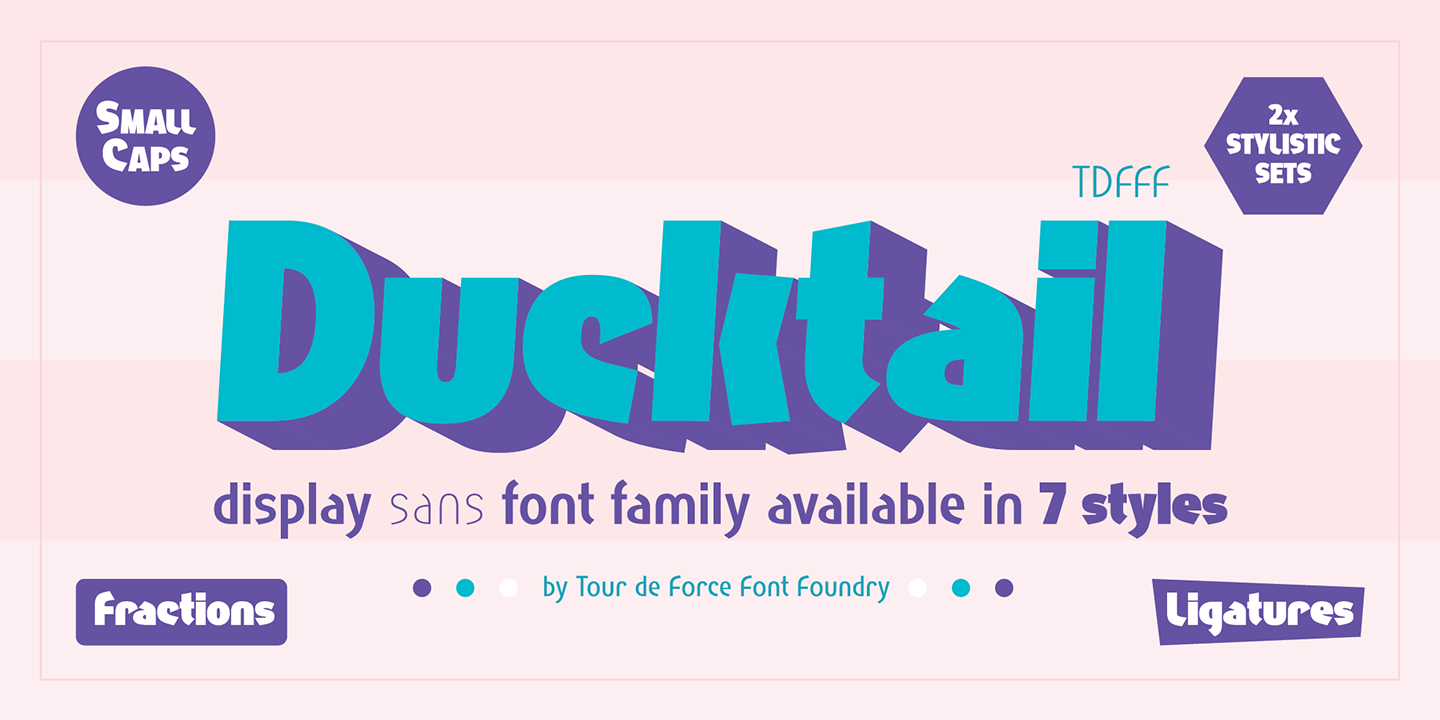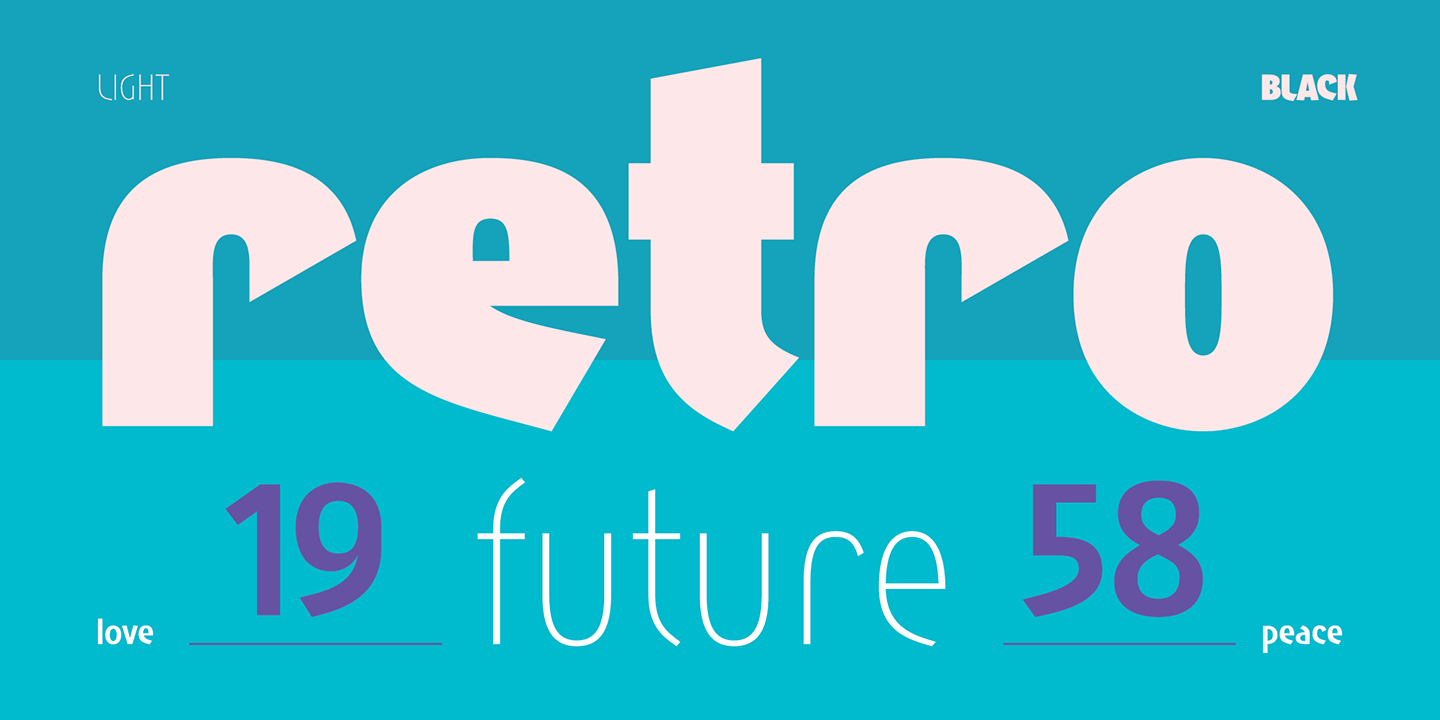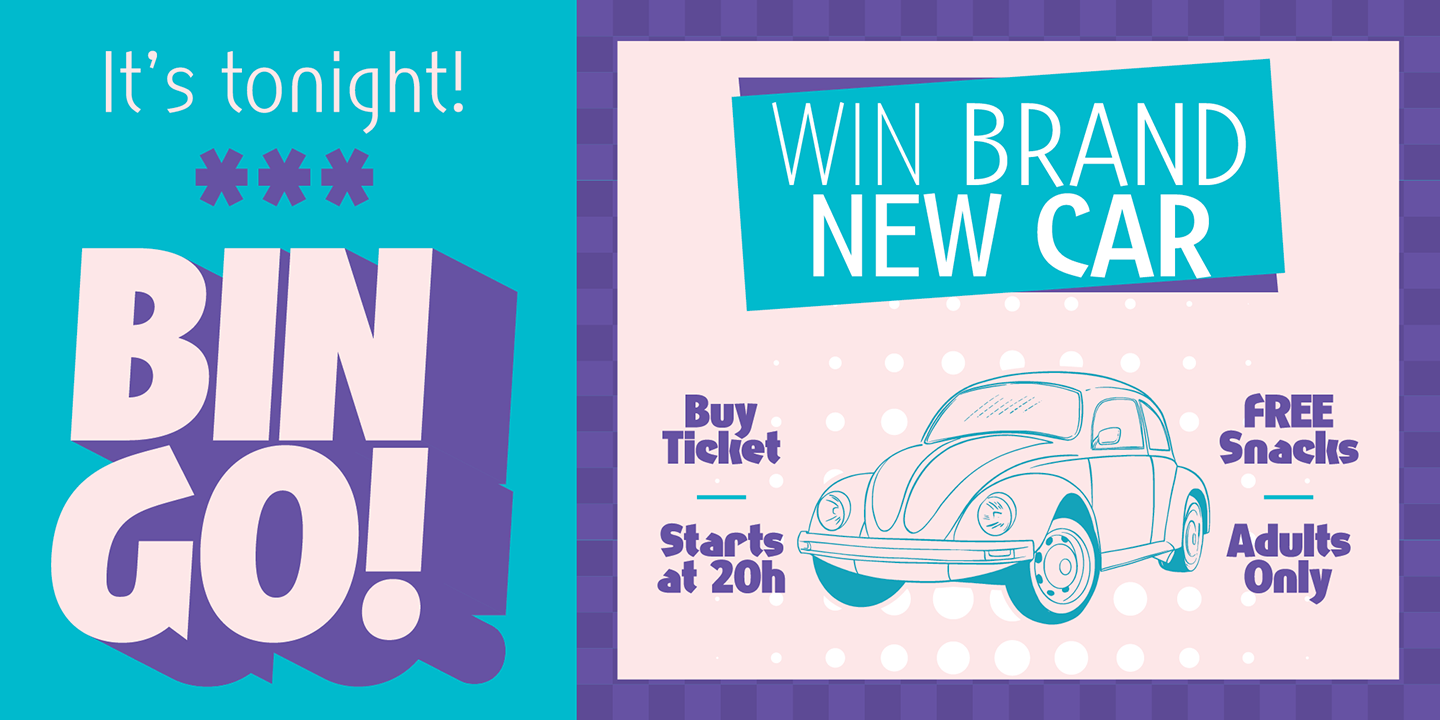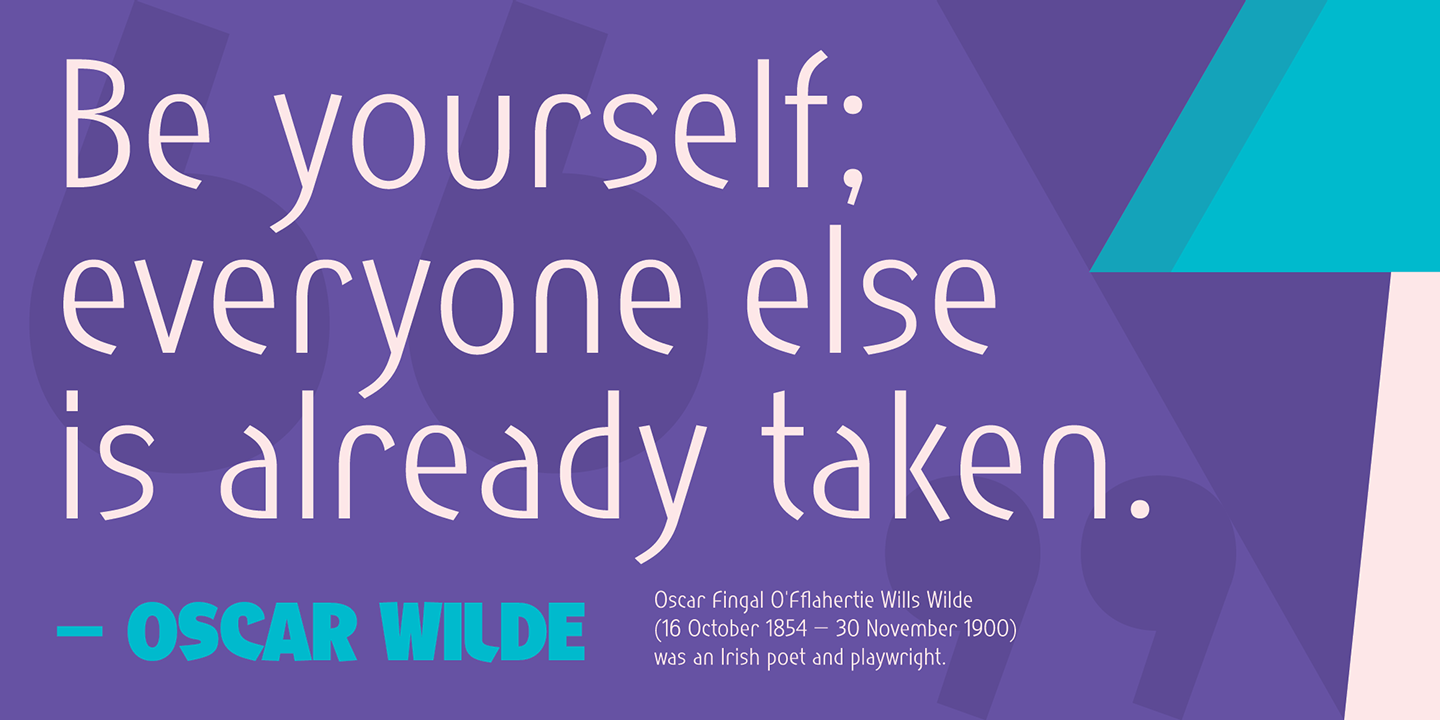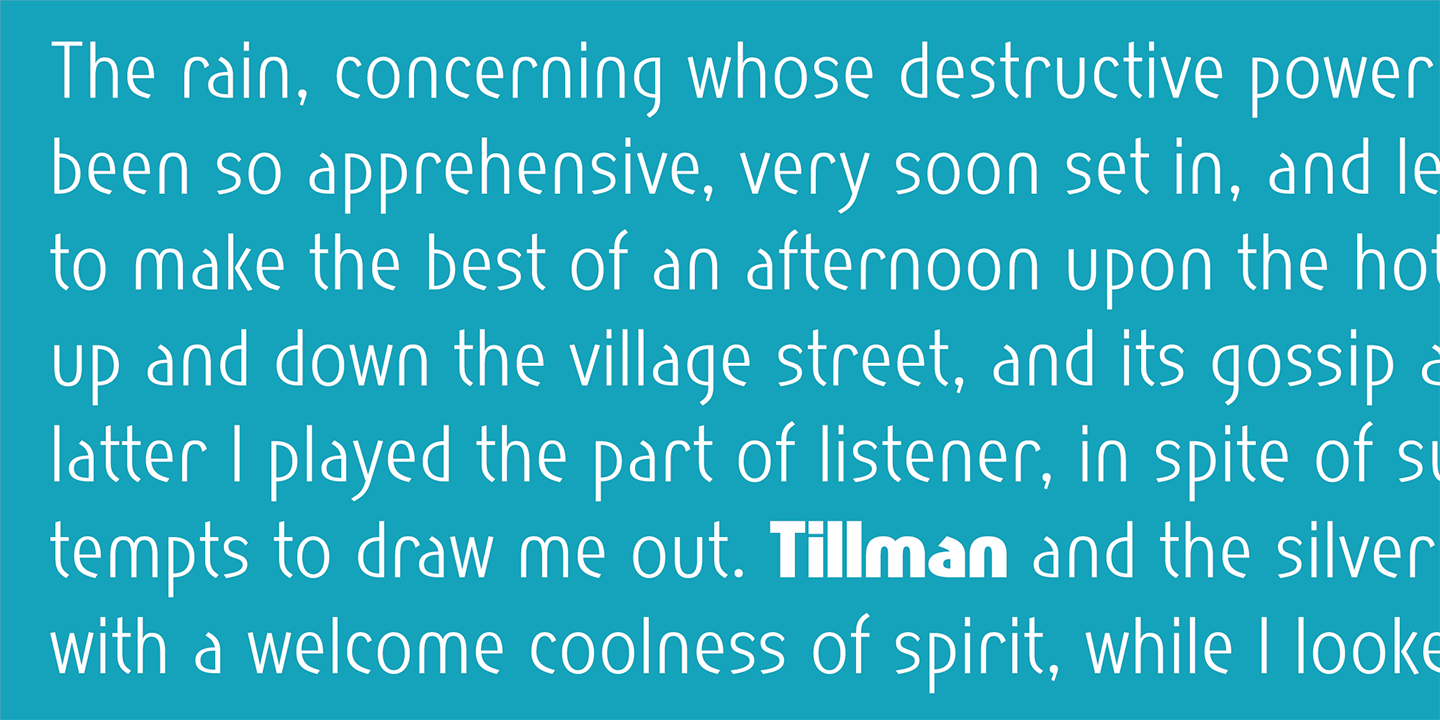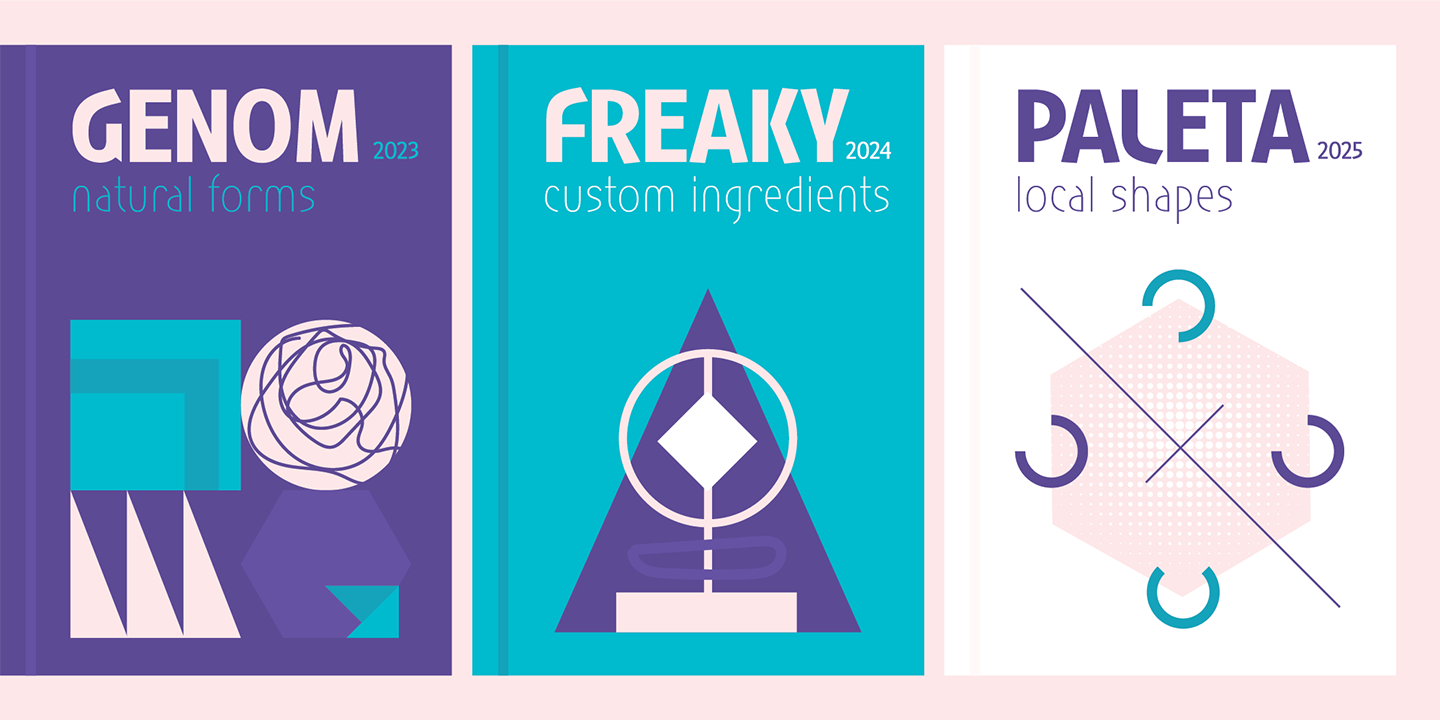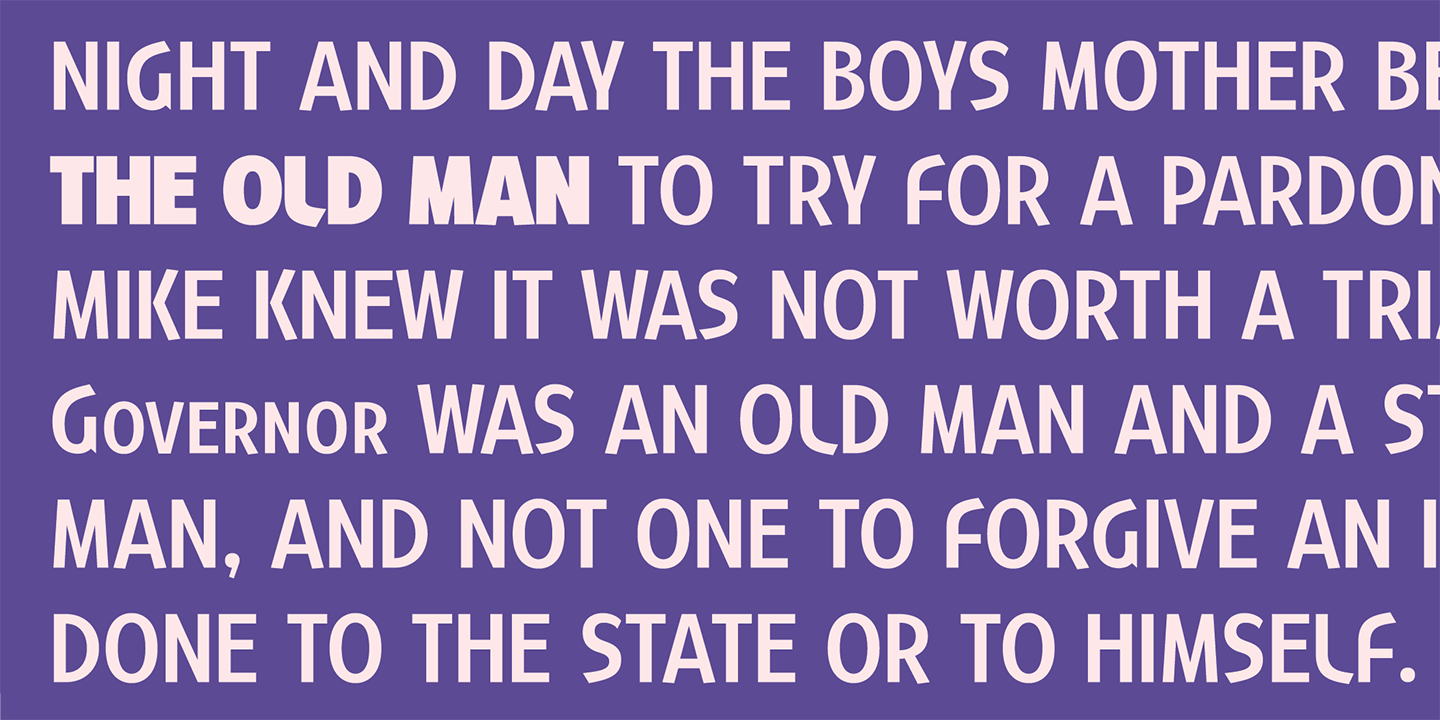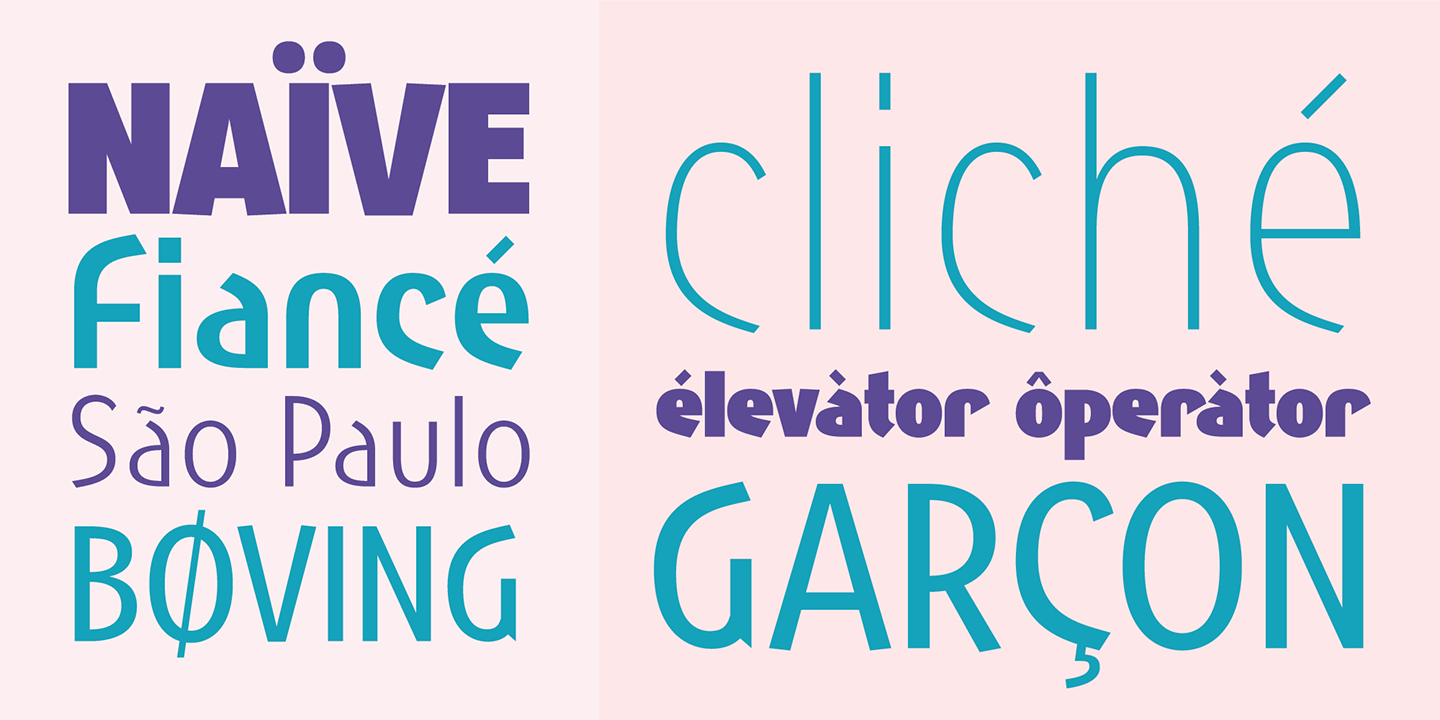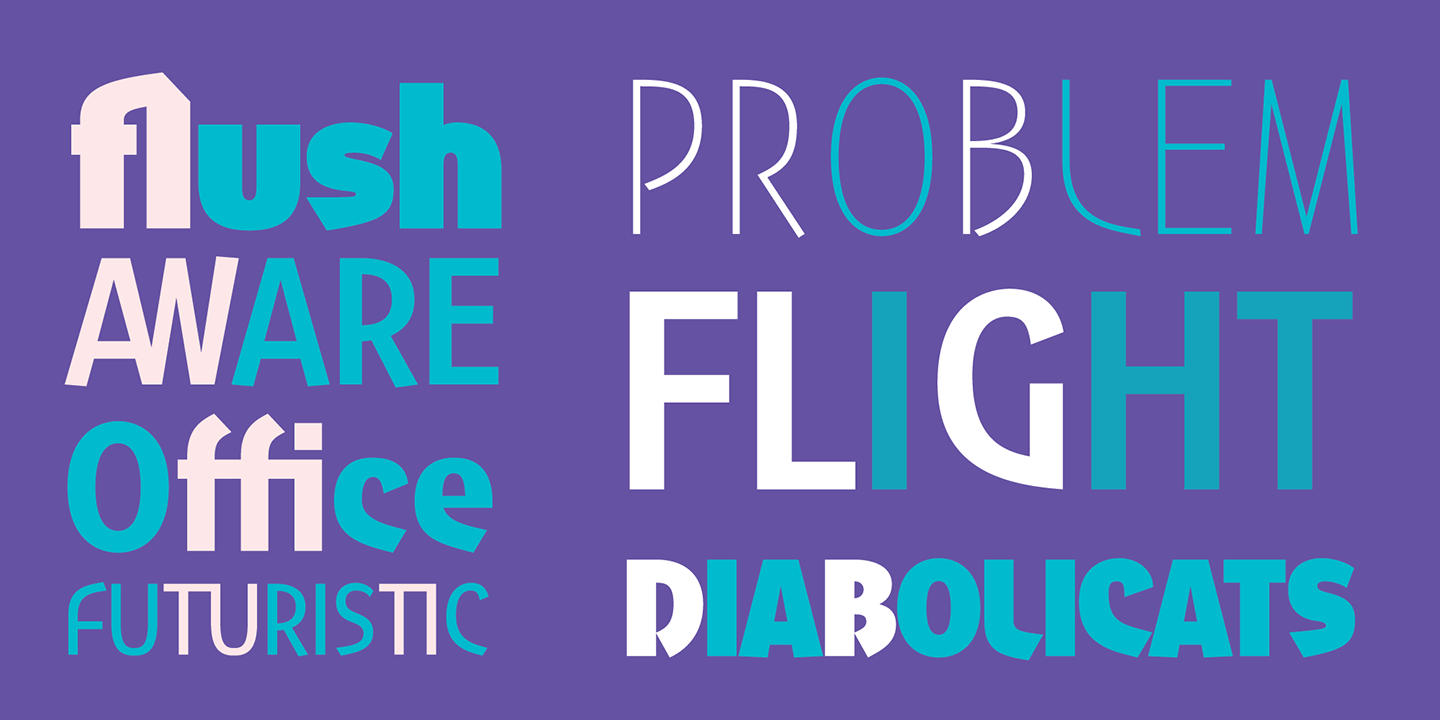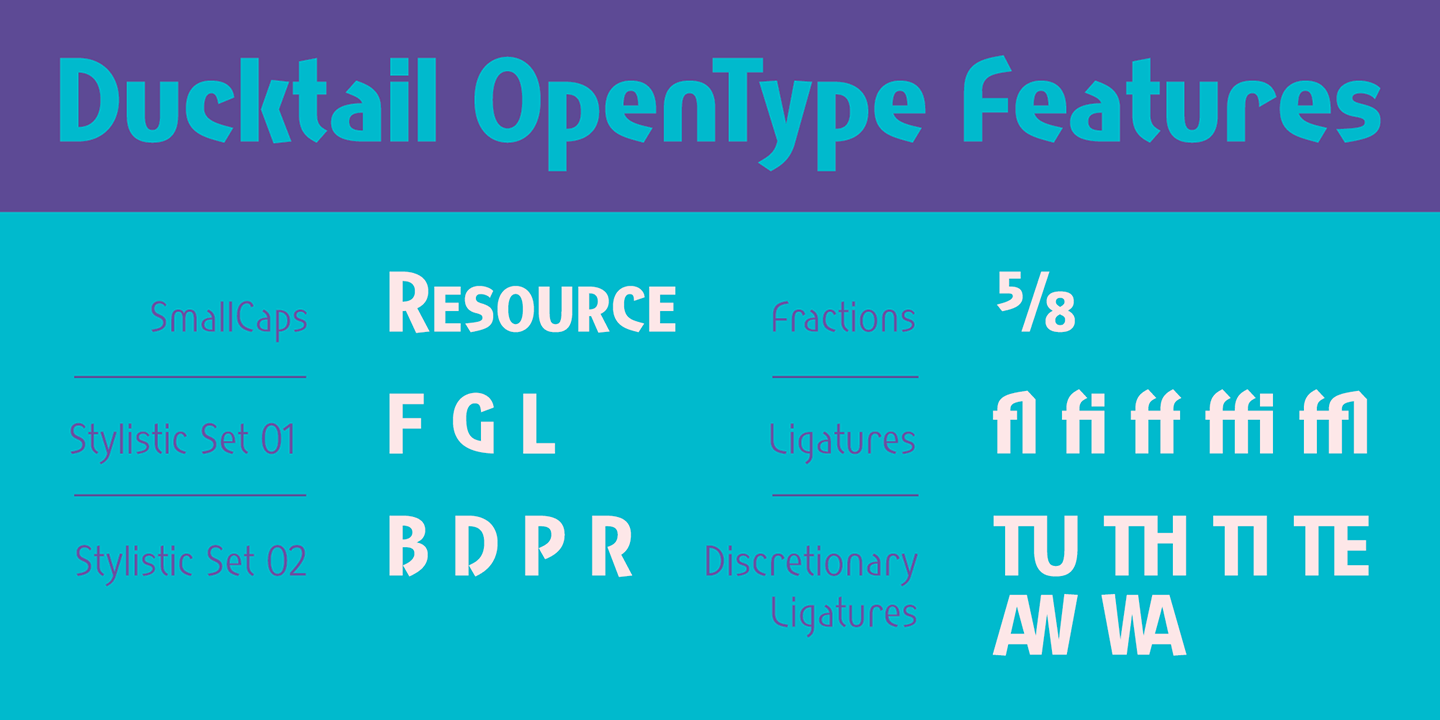
Ducktail is font family that combine elements from display and sans serif categories.
Comes in 7 styles with OpenType features: Small Caps, Fractions, 2x Stylistic Sets and Ligatures.